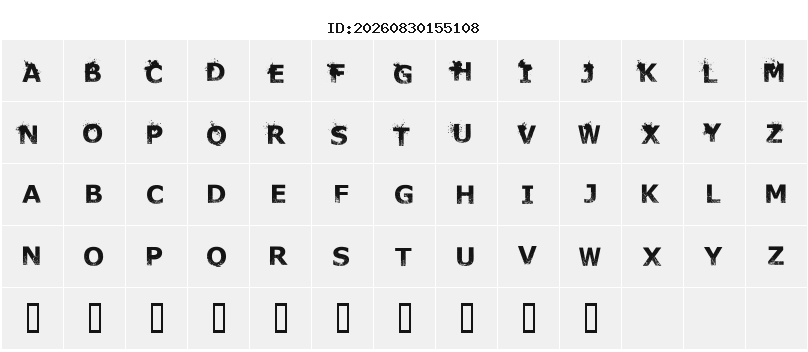
• Font Name: TheDeadAreComing
• Font ID: FontsbyGKDN: The Dead Are Coming:
• Full Font Name: The Dead Are Coming
• Designer: Chris Vile
• Manufacturer: Fonts by GKDN
• Description: The Dead Are Coming is a font by Fonts by GKDN, designed by Chris Vile in 2013.
About TheDeadAreComing.ttf